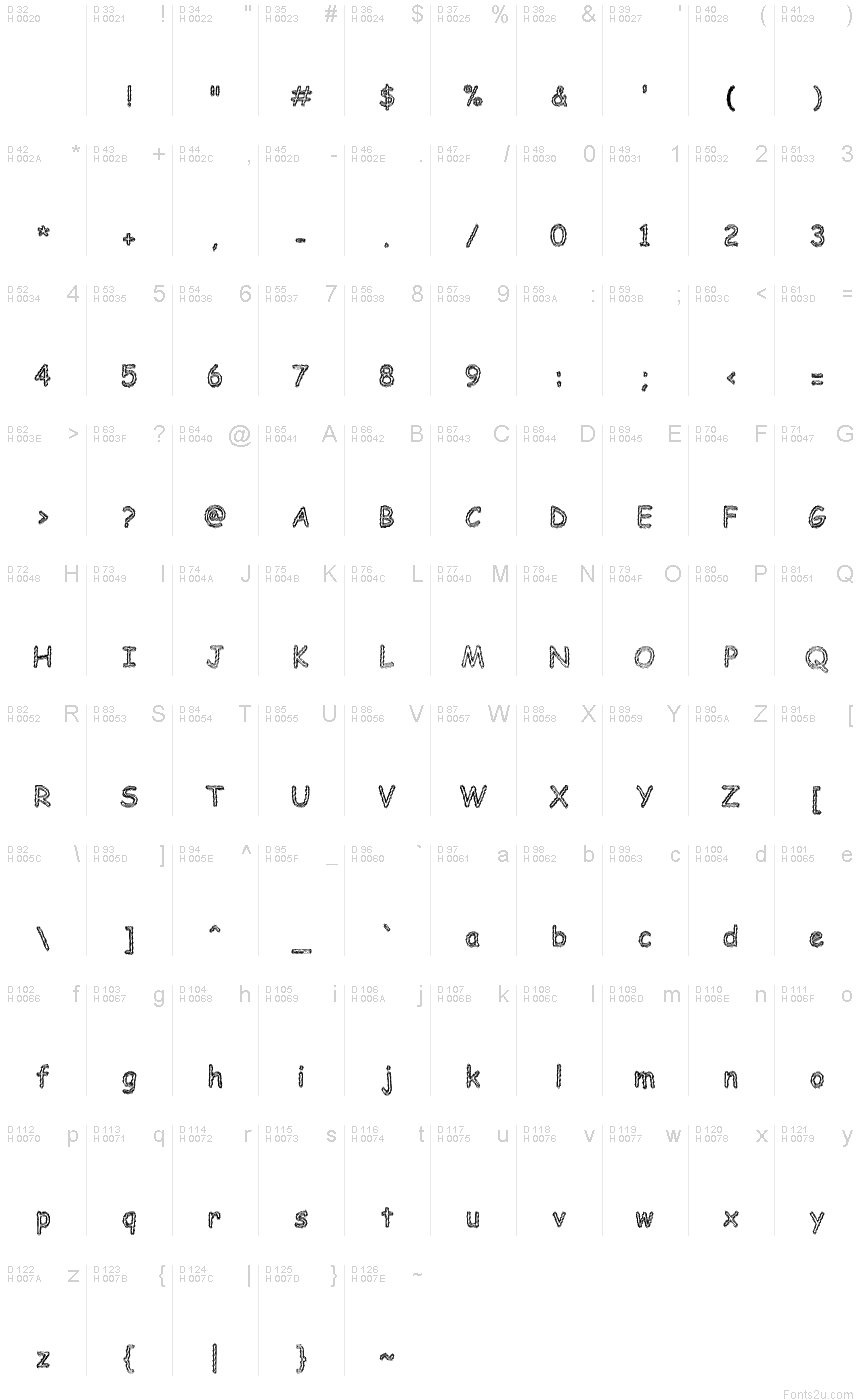
BeerGlass
BeerGlass font by GemFonts98 is a free distorted display typeface that looks like it’s been poured, swirled, and left to fizz on the page. Each letter feels hand-drawn and liquid, with rippling outlines and foamy textures that imitate condensation on a glass. The result is messy in a controlled way-energetic, organic, and impossible to ignore in a headline or logo lockup.
Using BeerGlass, this free font shines on craft beer labels, bar menus, festival posters, Halloween graphics, party invitations, and zine-style covers. Its dense, wavy lines work best at larger sizes where the grungy, bubbly detail can really be seen. For supporting text, pair it with a clean, straightforward sans serif to let BeerGlass handle the chaos while the body copy stays crisp and readable.